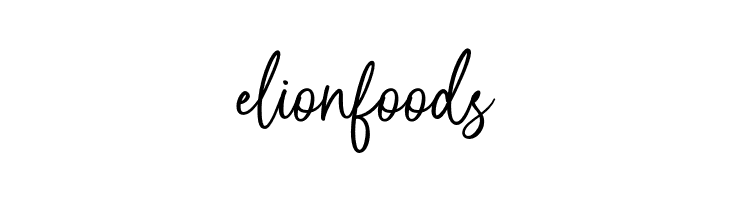
Aurothesia Demo Aurothesia Font
Elegant handwritten script with tall, flowing characters.
Aurothesia Font
A lively and elegant cursive script font with fluid connections.